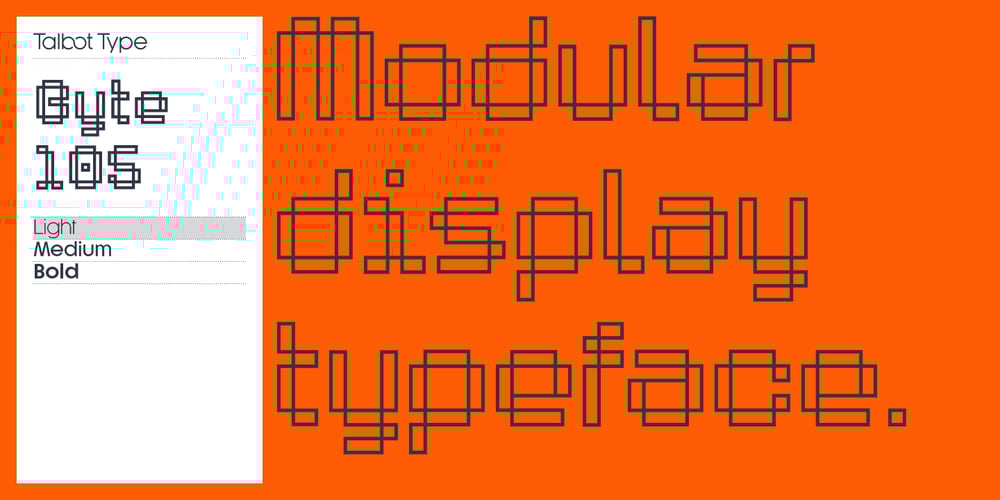
Byte 105 Font Family was designed by Adrian Talbot and published by Talbot Type. Byte 105 contains 3 styles and family package options. Byte 105 is a modular font, resulting from experiments in creating a practical, legible font from a minimum set of geometric components on a uniform grid.It has full upper and lower case character sets and includes all accented characters for Western and Central European languages.It’s available in three styles – 105, 205 and 305. Each style has different corners, 105 is square, 205 is bevelled and 305 is round. Each style is available in three weights, Light, Medium and Bold.